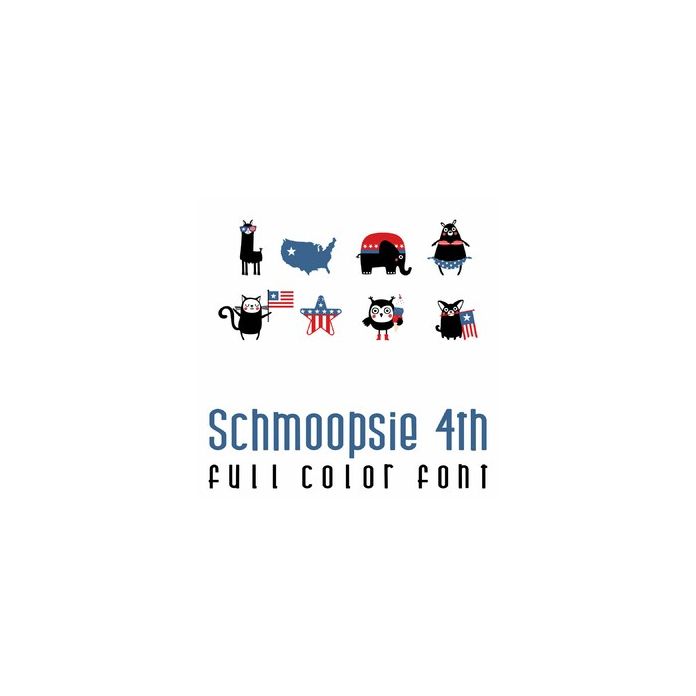
This adorable full color doodlebat font features cute Patriotic animal masks. Perfect for cards, crafts, gifts, decor, scrap book pages, planner stickers and more!